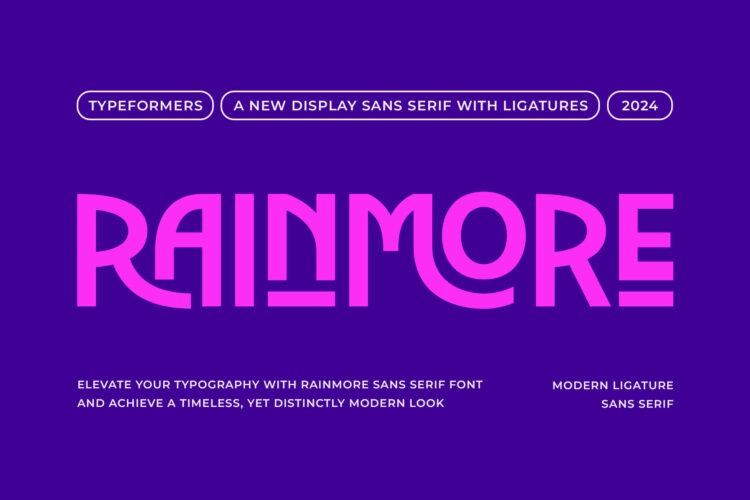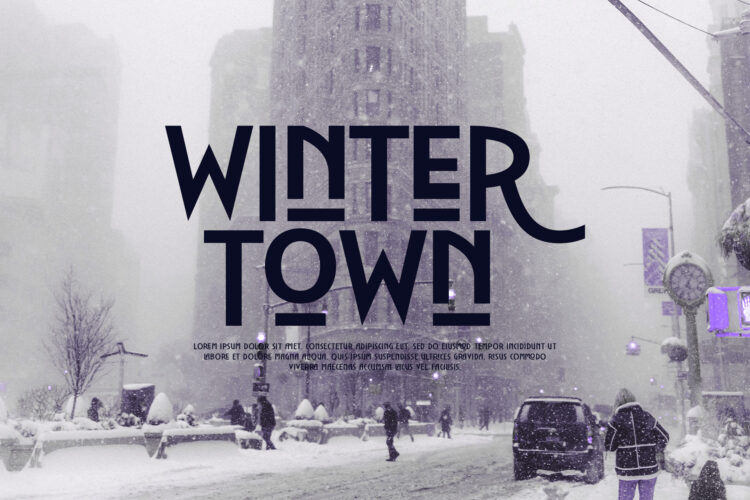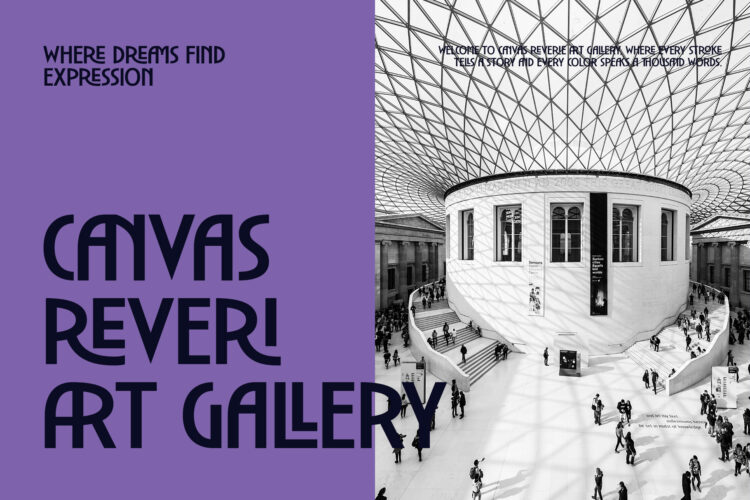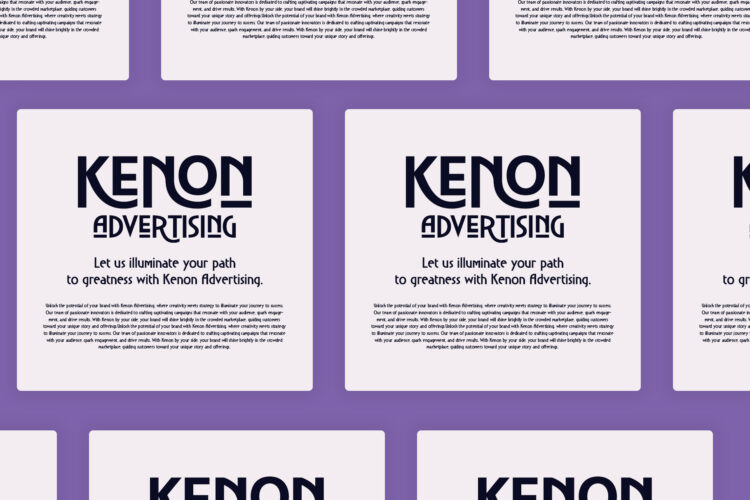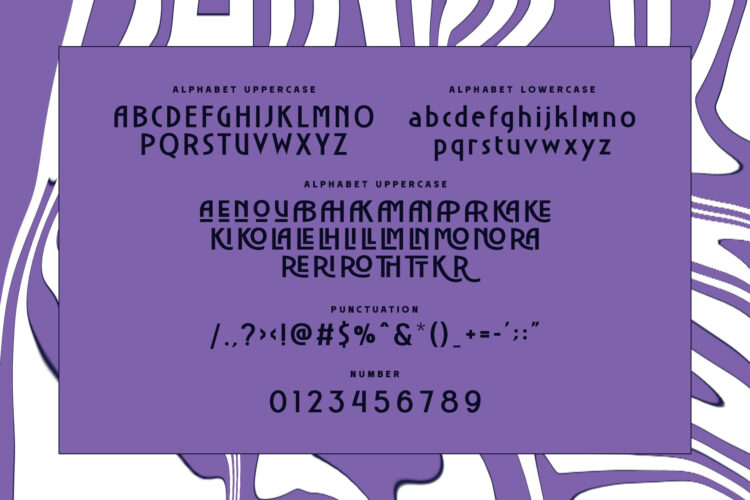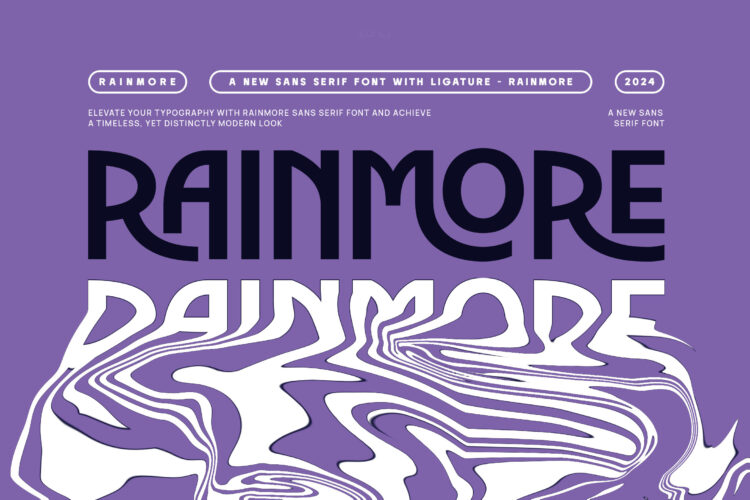
Introducing Rainmore – Modern Ligature Sans Serif.
Rainmore is a modern and simple font, best used as a display for headings, logos, branding, magazines, product packaging and invitations.
Rainmore – Modern Ligature Sans Serif